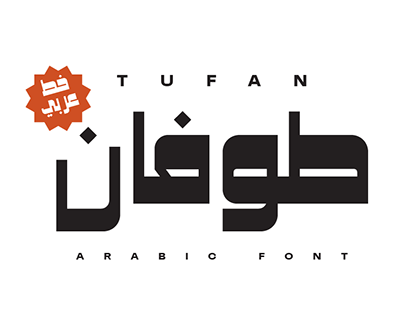
Tufan Font
Storm lives up to its name—meaning “flood” in Arabic—with powerful, dramatic letterforms that sweep across your designs with unstoppable force. Inspired by the geometric strength of Kufic calligraphy, this font showcases striking contrast between bold, sweeping strokes and delicate thins, creating visual drama that commands attention.
Design Inspiration:
- Inspired by powerful Kufic script tradition
- Dramatic contrast between thick and thin lines
- Strong, courageous character befitting its name
- Geometric foundation with artistic expression
Design Characteristics:
- High-contrast strokes with bold impact
- Powerful, commanding letterforms
- Stylistic design with retro appeal
- Dynamic visual presence
- Memorable, distinctive character
Arabic Script:
- Complete Arabic character set
- Full support for diacritics and marks
- Proper character connections and positioning
- Dramatic styling across all letters
- Optimized for display applications
- Retro Titles: Vintage-inspired headlines
- Posters: Bold, dramatic promotional materials
- Logos: Powerful brand identities
- Album Covers: Music with impact
- Movie Titles: Dramatic film typography
- Packaging: Products needing strong presence
- Signage: Commanding displays
- Editorial Headlines: Bold magazine statements
- Advertising: Campaigns with power
- Dramatic Impact: High-contrast, powerful letterforms
- Retro Appeal: Vintage-inspired character
- Strong Character: Lives up to its “storm” name
- Professional Quality: High-caliber font for commercial use
Key Features of Storm Font:
- Kufic-inspired design with dramatic thick/thin contrast
- Complete Arabic character set
- Powerful, courageous character
- Perfect for retro titles and posters
- Poster and title designers
- Retro and vintage projects
- Brand and logo creators
- Advertising and marketing professionals
- Anyone needing powerful, dramatic Arabic typography